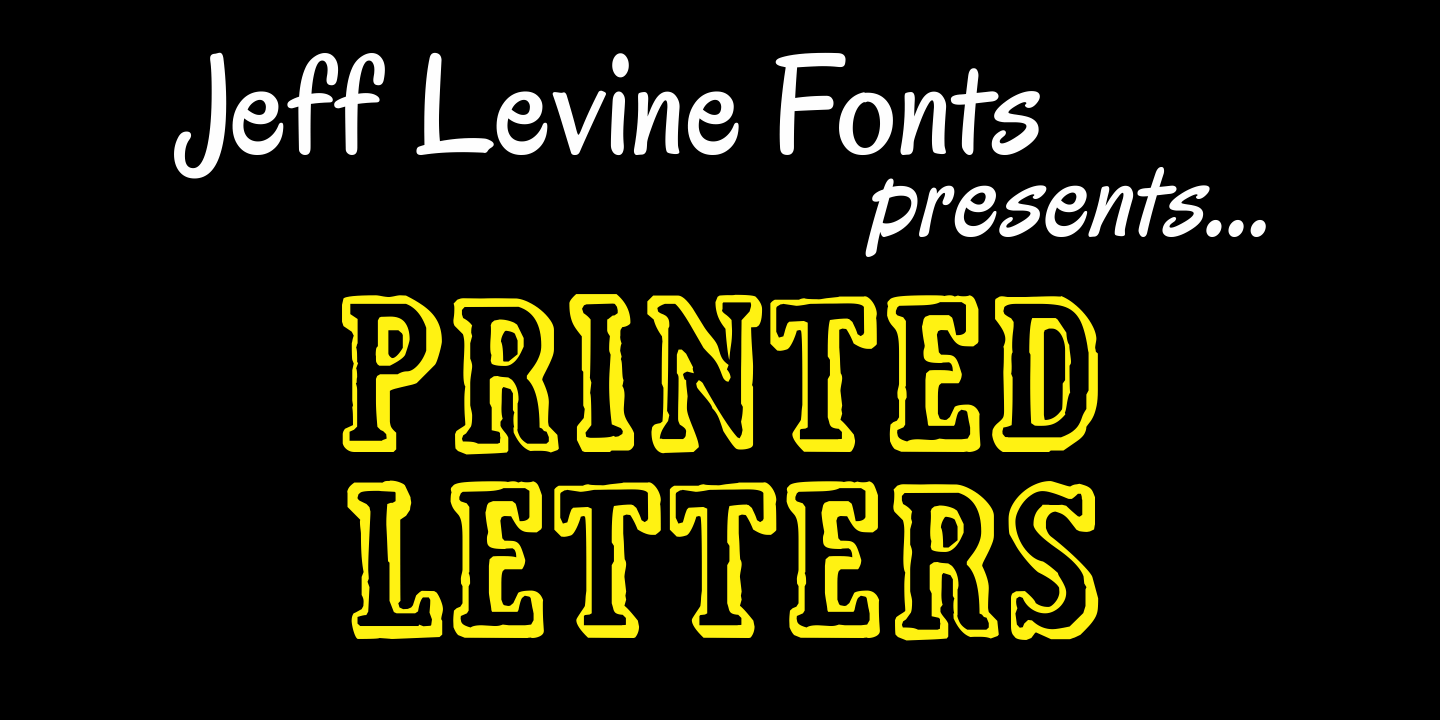
Printed Letters
Printed Letters JNL is from stamped impressions made by a children's sign making set by the Superior Marking Equipment Company of Chicago - circa the 1940's.
The set consisted of individually mounted rubber stamps - easy enough for happy kiddies to print signs, name plates or (unfortunately for their parents) on the walls...
Limited character set.